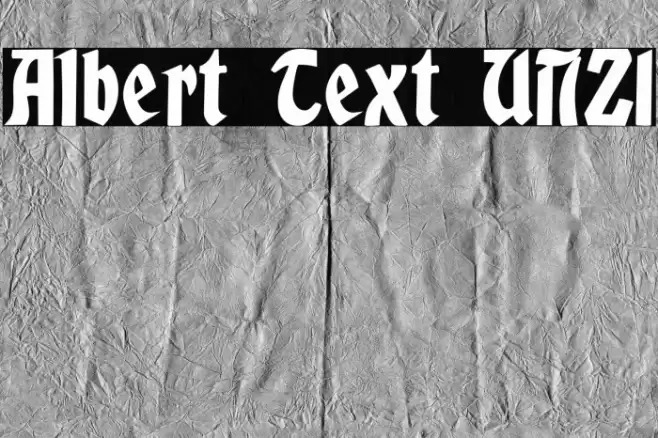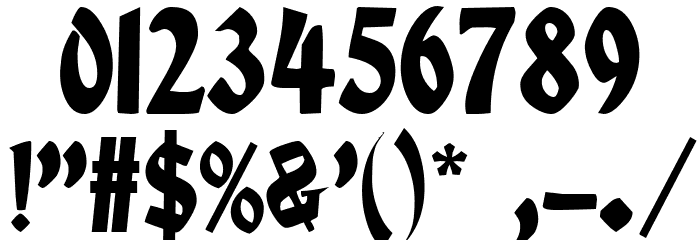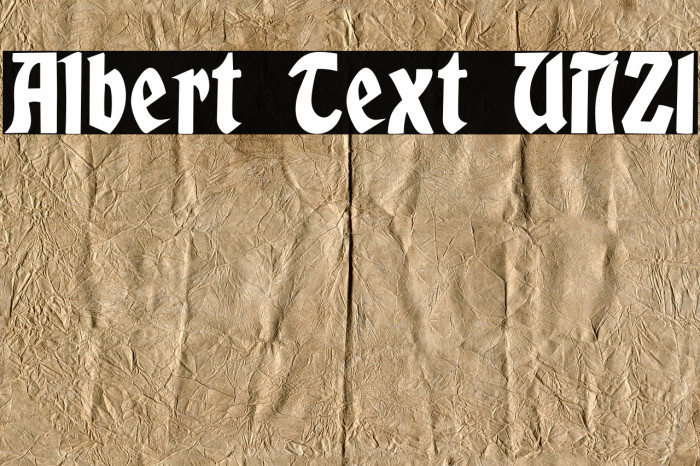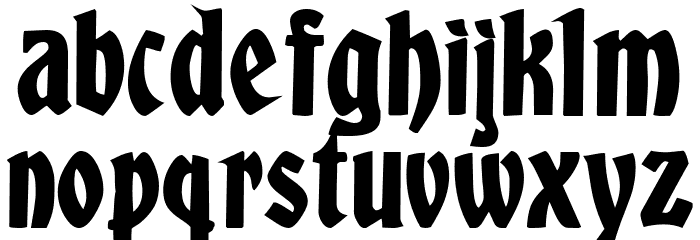
Albert Text UNZ1 Font
Albert Text UNZ1 Description
This font features a bold and dramatic style with a strong presence. The characters are designed with thick strokes and sharp angles, giving it a distinctive and powerful look. The uppercase letters have a unique flair with exaggerated serifs and a slightly condensed form, while the lowercase letters maintain a consistent boldness. The numbers are equally bold, ensuring they stand out. Special characters are crafted with the same attention to detail, making them suitable for impactful designs. The overall aesthetic is reminiscent of vintage or gothic styles, making it ideal for projects that require a touch of drama and elegance.
A bold, dramatic font with vintage and gothic influences, featuring thick strokes and sharp angles from Uncategorized fonts.
- Proposed Projects: Ideal for posters, logos, book covers, and any design requiring a bold, dramatic impact.
- Overall Style: Vintage, Gothic